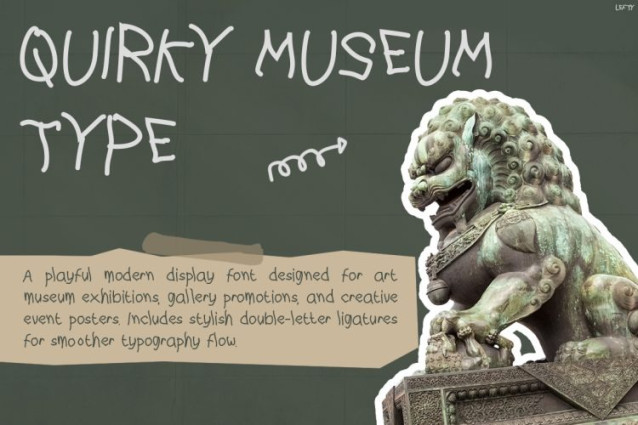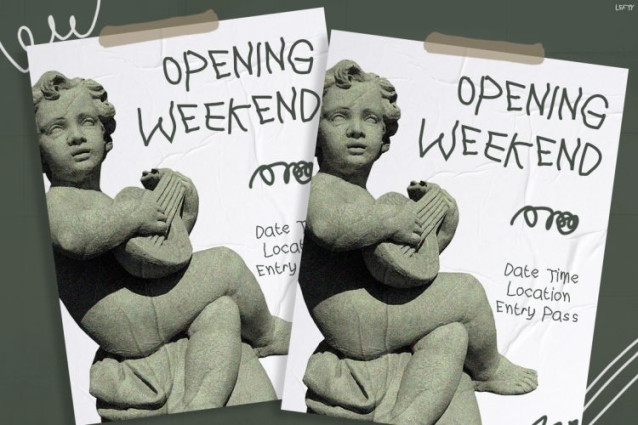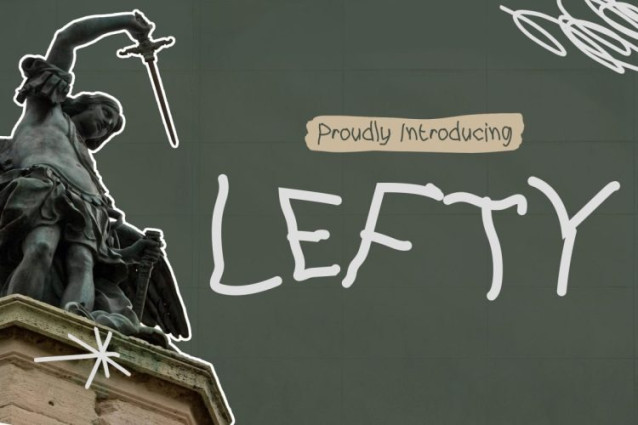
Lefty Font
Lefty Font is a playful handwritten display font that blends artistic expression with modern quirky aesthetics. Inspired by museum exhibitions, sketchbook lettering, and authentic hand-drawn typography, this font creates a raw yet elegant visual personality. Moreover, Lefty stands out because of its naturally imperfect strokes, expressive character shapes, and unique handwritten flow. Unlike standard handwritten fonts, Lefty includes both lowercase and uppercase ligatures, allowing every word to feel more connected, stylish, and visually dynamic. As a result, designs instantly look more artistic, personal, and memorable. In addition, the font delivers a balance between playful creativity and clean readability, making it highly versatile for modern design projects. Therefore, whether you are creating exhibition posters, editorial layouts, or artistic branding, Lefty helps your typography feel authentic and emotionally engaging.
Why Kids Font Lefty Feels So Unique
Kids Font Lefty combines quirky handwritten energy with premium artistic details. Furthermore, the uppercase and lowercase ligatures add a natural handwritten rhythm that makes text compositions feel smooth and expressive. Thanks to its sketch-inspired appearance, this font creates a warm and creative atmosphere while still maintaining strong readability. At the same time, the imperfect handwritten texture gives every design a handcrafted and human touch. Besides that, Lefty includes uppercase, lowercase, numbers, punctuation, and stylish ligatures, so designers can create flexible and eye-catching typography layouts effortlessly. Consequently, this font works beautifully for branding, posters, creative campaigns, packaging, and editorial visuals.
Perfect For Who?
Kids Font Lefty is perfect for graphic designers, curators, artists, illustrators, creative agencies, educators, and content creators who want typography with personality and artistic depth.